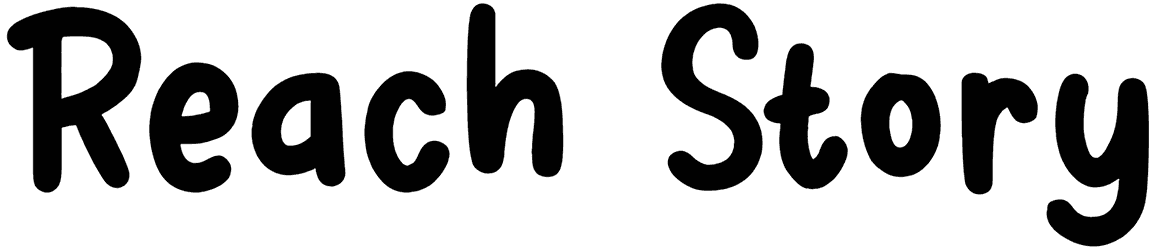
Reach Story Font
Make use of the script font; Reach Story to give your work a lighthearted air. This quirky school font, with its own distinct style, could give off a more laid-back appearance.